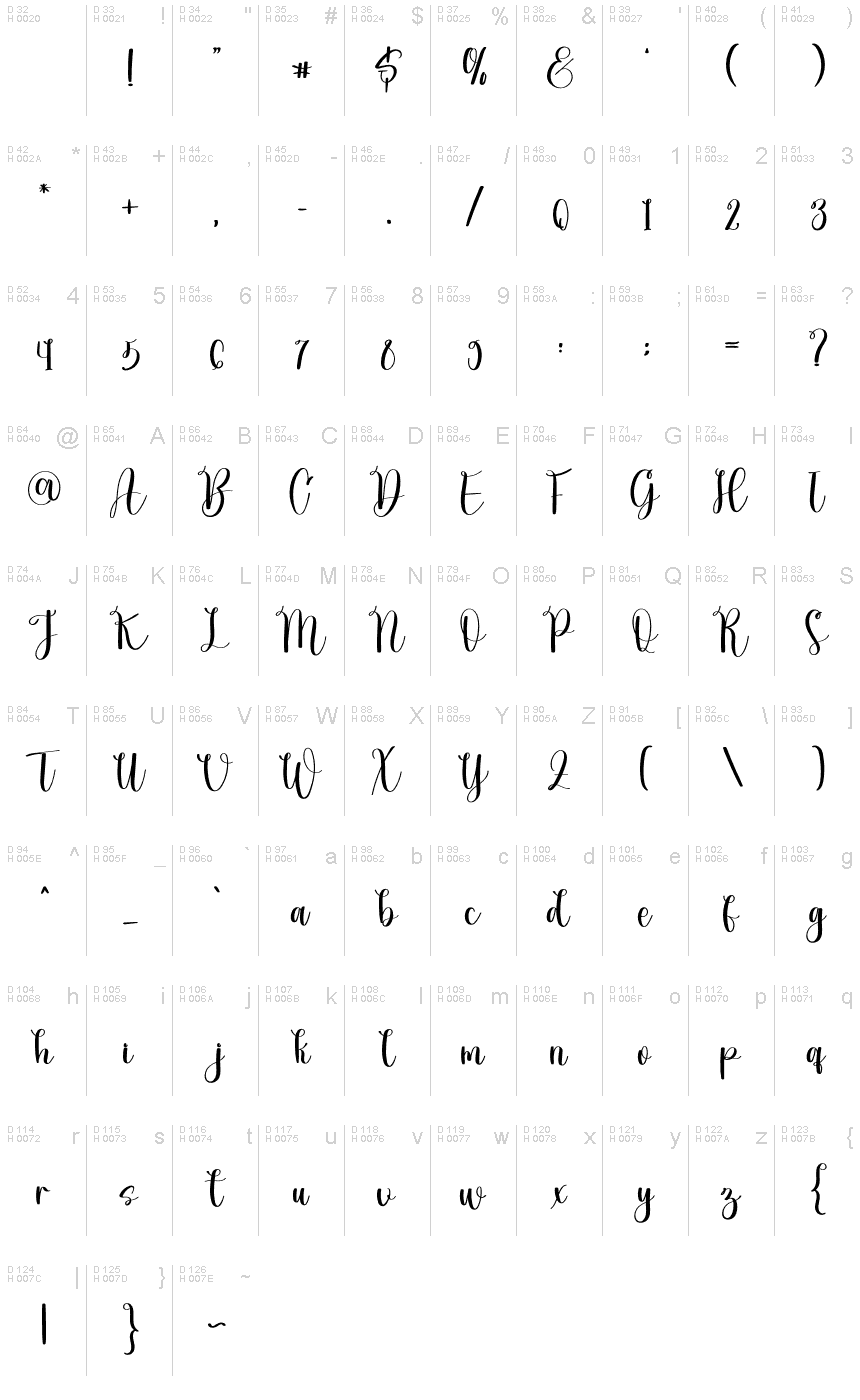
Handlettering
Say goodbye to boring typography with Handlettering! Designed by FreshtypeINK, this calligraphy-inspired font is perfect for projects that need a touch of elegance and sophistication. Its condensed style adds a modern twist without losing its classic charm. Use it for invitations, branding, logos, and more – the possibilities are endless. With its smooth strokes and effortless curves, Handlettering is sure to make your designs stand out from the crowd. Upgrade your typography game with Handlettering today!